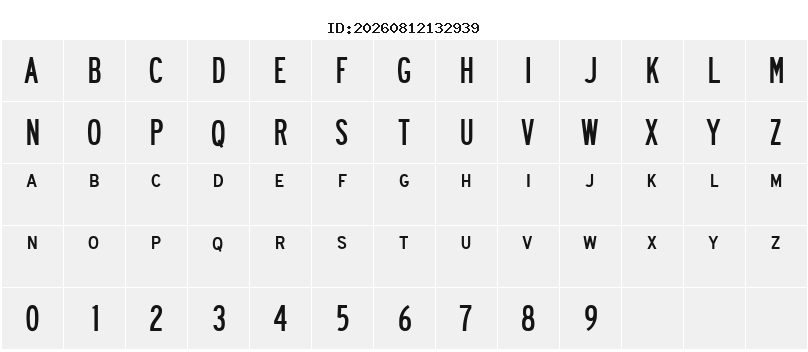
• Font Name: Roadway
• Full Font Name: Roadway
Roadway.ttf is a modern, elegant sans-serif font designed for ultimate readability and visual harmony. Perfect for branding, headlines, web design, and print materials.